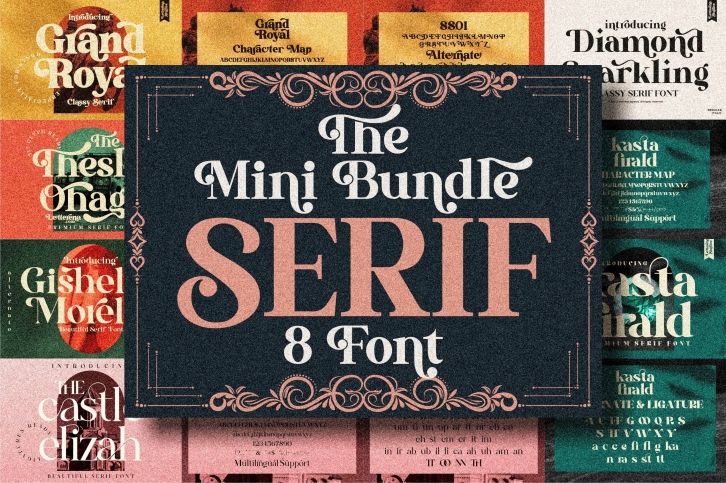
Serif Bundle is a gorgeous font that was realeased on January 28, 2021. The font can be used in many style contexts and design environments. Perfect for invitations, magazines, websites, logos, and more! It was designed by Letterena Studios and the file size is 6.65 MB. Thanks for checking out this font!